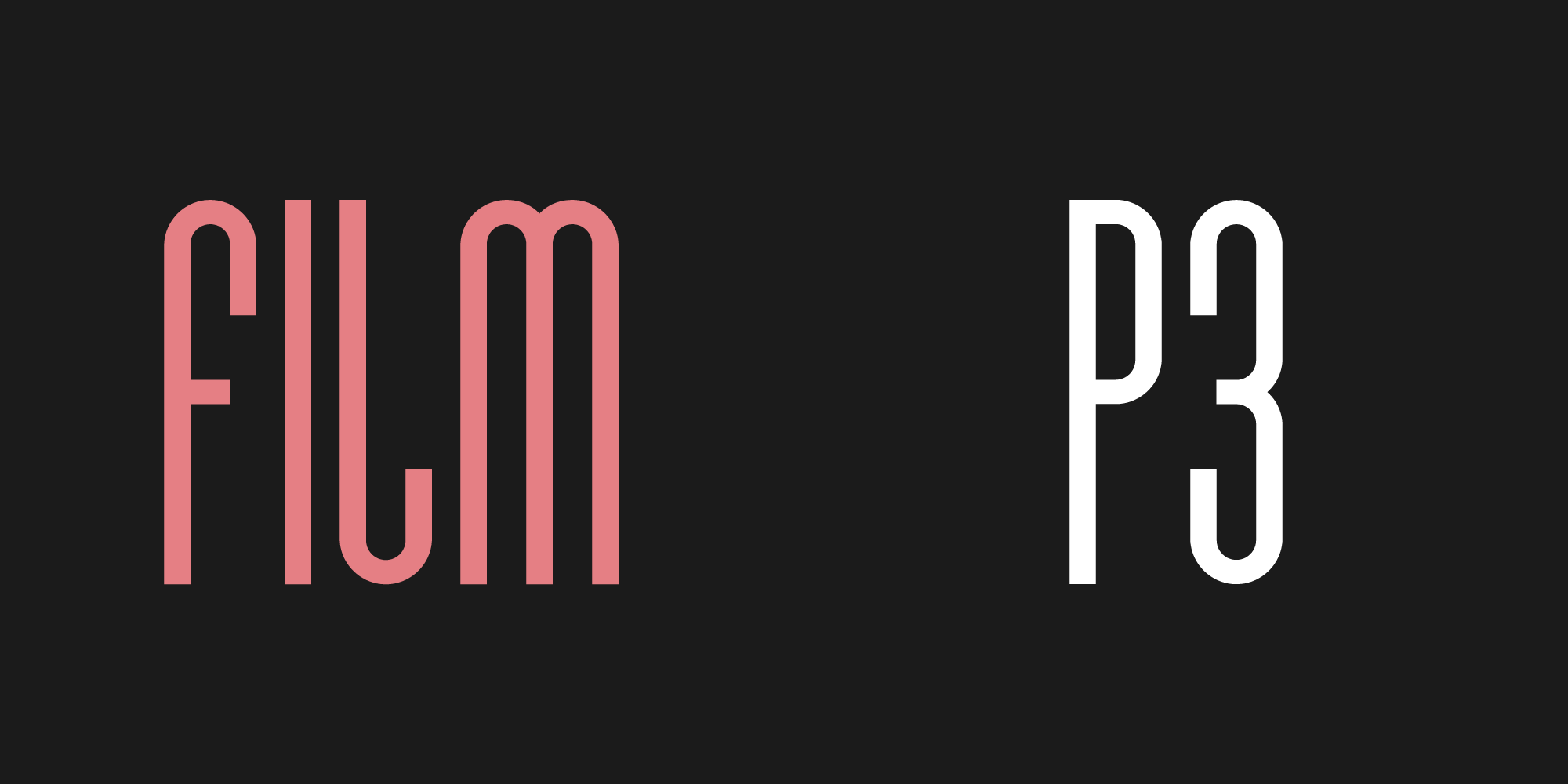
Film P3 Font is ideal for movie title designs, cinema poster layouts, film festival promotions, entertainment industry branding, video production company logos, streaming service interfaces, documentary title cards, film school materials, movie theater signage, entertainment magazine layouts, film awards ceremonies, and cinematic merchandise design. This sophisticated typeface excels in applications requiring cinematic authenticity and professional film industry appeal, making it perfect for production companies, entertainment venues, film festivals, and media organizations.
What makes Film P3 Font exciting is its authentic cinematic character that captures the essence of professional film typography. The font features distinctive letterforms with precise geometric proportions and subtle refinements that evoke the golden age of cinema while maintaining contemporary functionality. Its carefully balanced spacing and elegant character variations create an atmosphere of Hollywood sophistication and film industry credibility. The font's unique personality successfully bridges classic film aesthetics with modern digital requirements, offering designers an authentic tool for entertainment-focused projects.
The Film P3 Font family typically includes multiple weights such as Light, Regular, Medium, Bold, and Black variations, along with their corresponding italic styles. Many collections also feature condensed versions, extended variants, and special display styles that enhance the font's cinematic character. Some comprehensive packages include alternative character sets, film-inspired ligatures, and decorative elements that provide complete typographic flexibility for entertainment industry projects.
Film P3 Font Free Download represents the perfect fusion of Hollywood glamour and typographic excellence. This remarkable typeface brings instant credibility and cinematic appeal to any project, making it particularly valuable for entertainment brands, film production companies, and creative projects targeting movie enthusiasts. The font's versatile nature allows it to perform beautifully in both large-scale cinema displays and detailed promotional materials.
Designers treasure Film P3 Font for its ability to instantly convey professional film industry quality and cinematic sophistication. The font's technical excellence ensures flawless rendering across various media and applications, while its aesthetic appeal adds immediate entertainment industry credibility to any design project. The comprehensive character set includes standard Latin characters, numerals, punctuation marks, and special symbols, making it suitable for international film projects and diverse entertainment applications.
This exceptional typeface successfully captures the essence of cinema history while offering modern functionality, providing designers with an authentic tool for creating memorable and impactful entertainment communications that resonate with audiences seeking genuine film industry experiences and Hollywood-quality presentation.